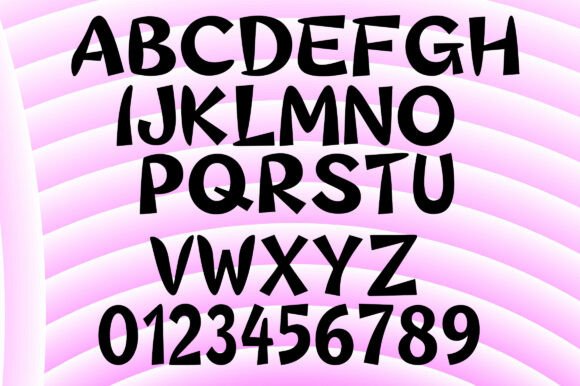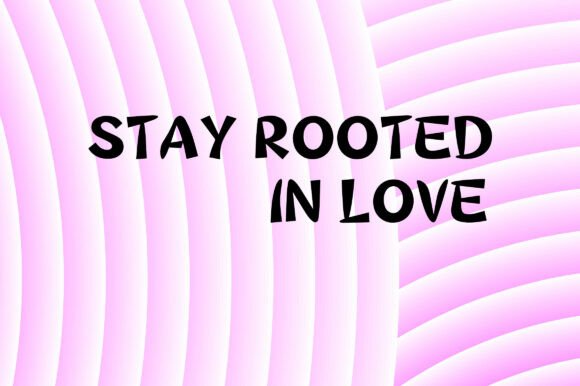
Bella Font: The Ultimate Display Font for Creative Projects
Are you looking for a font that can add a touch of whimsy and playfulness to your designs? Look no further than Bella Font, a bold display font with a handcrafted style that’s sure to capture attention. With its lively artistic charm and unique letterforms, Bella Font is perfect for designers and crafters who want to create eye-catching and memorable projects.
What Makes Bella Font So Special?
Bella Font is a one-of-a-kind display font that boasts a range of characteristics that set it apart from other fonts. Its playful uppercase letterforms, curved strokes, and slightly uneven shapes create a fun and expressive look that’s both stylish and unique. The font features uppercase letters A-Z and numbers 0-9, making it perfect for a wide range of creative projects.
Bella Font is ideal for designers and crafters who want to add a touch of personality to their projects. Whether you’re working on a logo, branding, poster, packaging, invitation, social media graphic, or any other creative project, Bella Font is the perfect choice. Its bold and playful style is sure to capture attention and leave a lasting impression.
Key Features of Bella Font
- Bold Display Font: Bella Font is a bold display font that’s perfect for headlines, titles, and other creative projects.
- Handcrafted Style: The font features a handcrafted style that’s unique and eye-catching.
- Playful Uppercase Letterforms: The font features playful uppercase letterforms that are sure to add a touch of whimsy to your designs.
- Curved Strokes: The curved strokes in Bella Font add a touch of elegance and sophistication to your designs.
- Slightly Uneven Shapes: The slightly uneven shapes in the font create a fun and expressive look that’s both stylish and unique.
- Uppercase Letters A-Z and Numbers 0-9: The font features uppercase letters A-Z and numbers 0-9, making it perfect for a wide range of creative projects.
How to Use Bella Font in Your Designs
Using Bella Font in your designs is easy. Here are a few tips to get you started:
- Use it as a Headline Font: Bella Font is perfect for headlines and titles. Use it to add a touch of personality to your designs.
- Pair it with Other Fonts: Bella Font pairs well with other fonts. Try pairing it with a sans-serif font for a bold and playful look.
- Experiment with Colors: Bella Font looks great in a range of colors. Experiment with different colors to find the one that works best for your design.
Why Designers and Crafters Love Bella Font
Designers and crafters love Bella Font for a range of reasons. Here are a few:
- Unique and Eye-Catching: Bella Font is a unique and eye-catching font that’s sure to capture attention.
- Versatile: The font is versatile and can be used in a wide range of creative projects.
Bella Font is a bold display font with a whimsical handcrafted style that’s perfect for designers and crafters who want to add a touch of personality to their projects. With its playful uppercase letterforms, curved strokes, and slightly uneven shapes, Bella Font is sure to capture attention and leave a lasting impression. Whether you’re working on a logo, branding, poster, packaging, invitation, social media graphic, or any other creative project, Bella Font is the perfect choice.